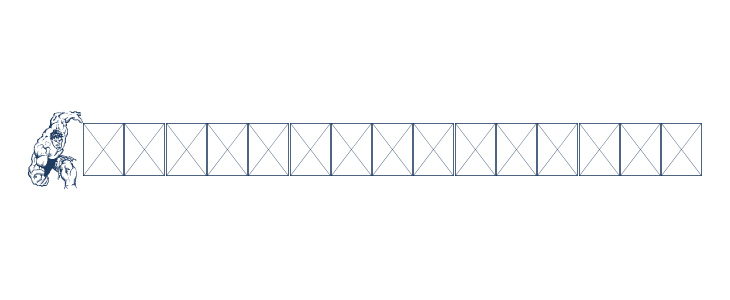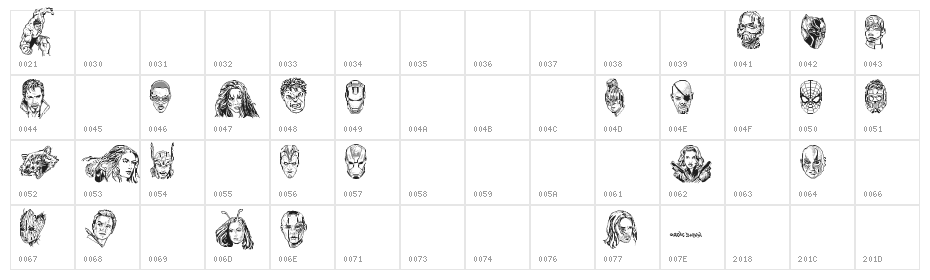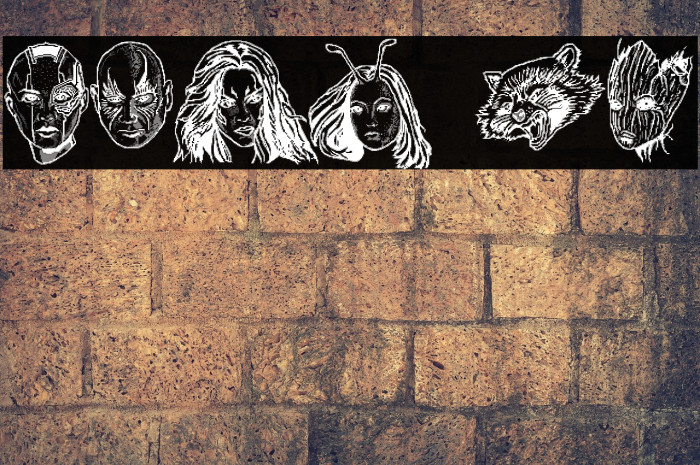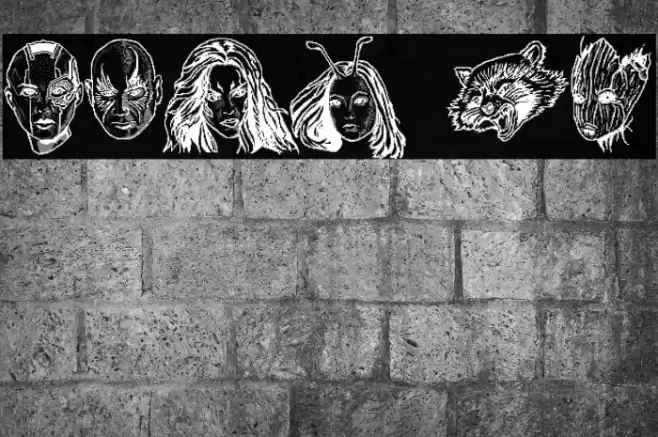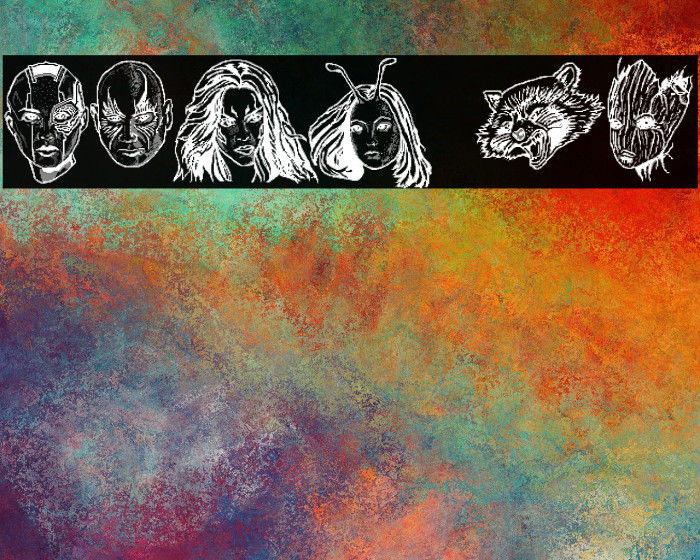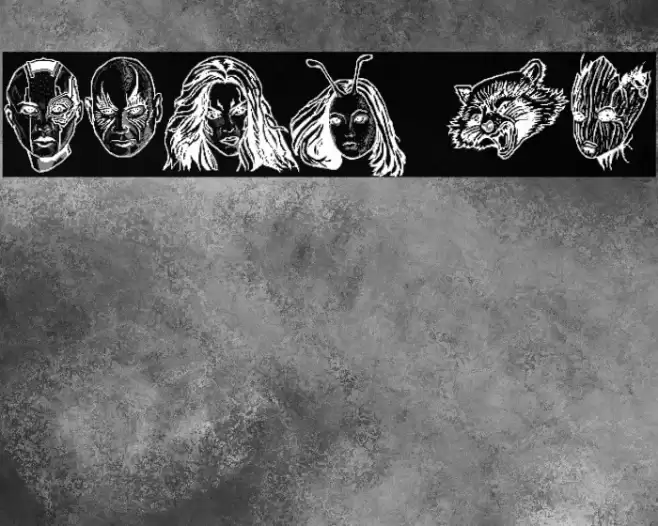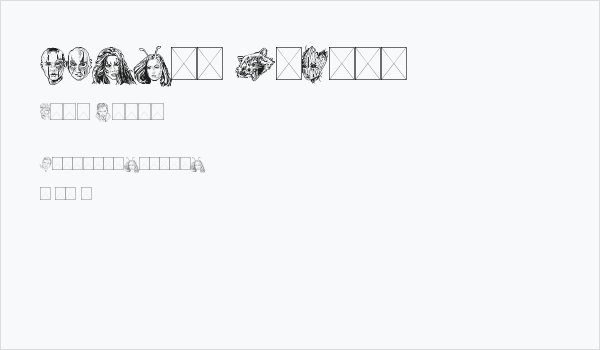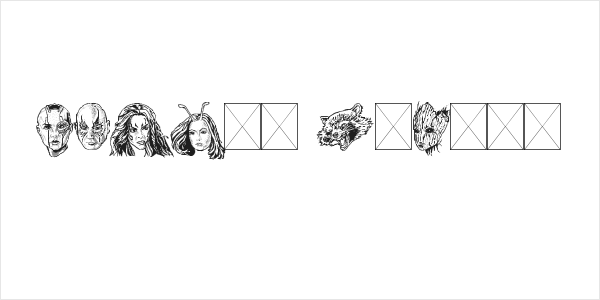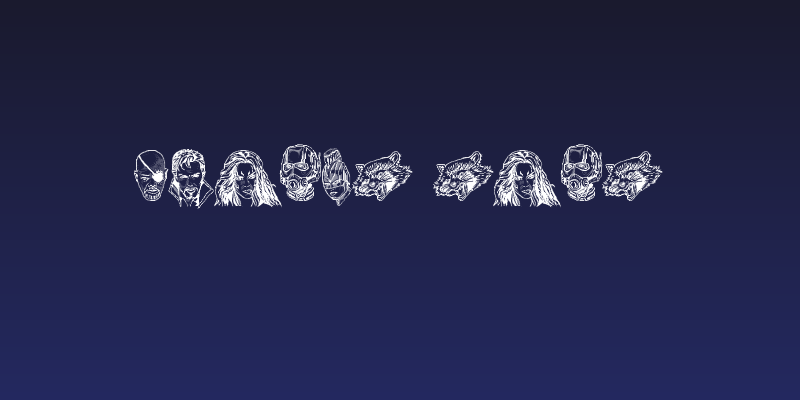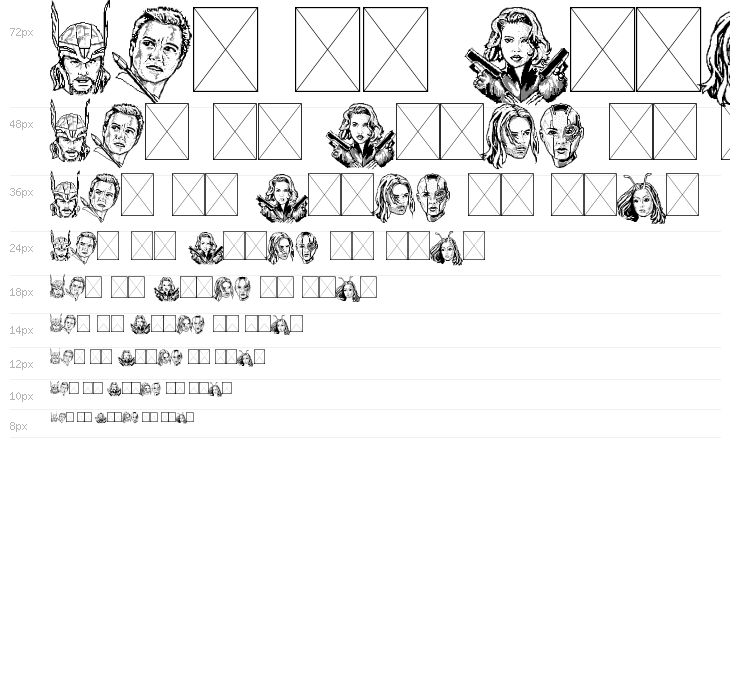
EndGamer Regular Font
EndGamer Regular Description
A decorative display font featuring detailed black-and-white illustrations of various comic-style characters, each glyph represented by a unique character portrait with strong outlines and expressive facial features.
| Overall Style | Decorative, Comic, Thematic |
| Use Case | Headlines, Logos, Themed graphics |
| Proposed Projects | Posters, fan art, themed party invitations, comic book covers, entertainment branding. |